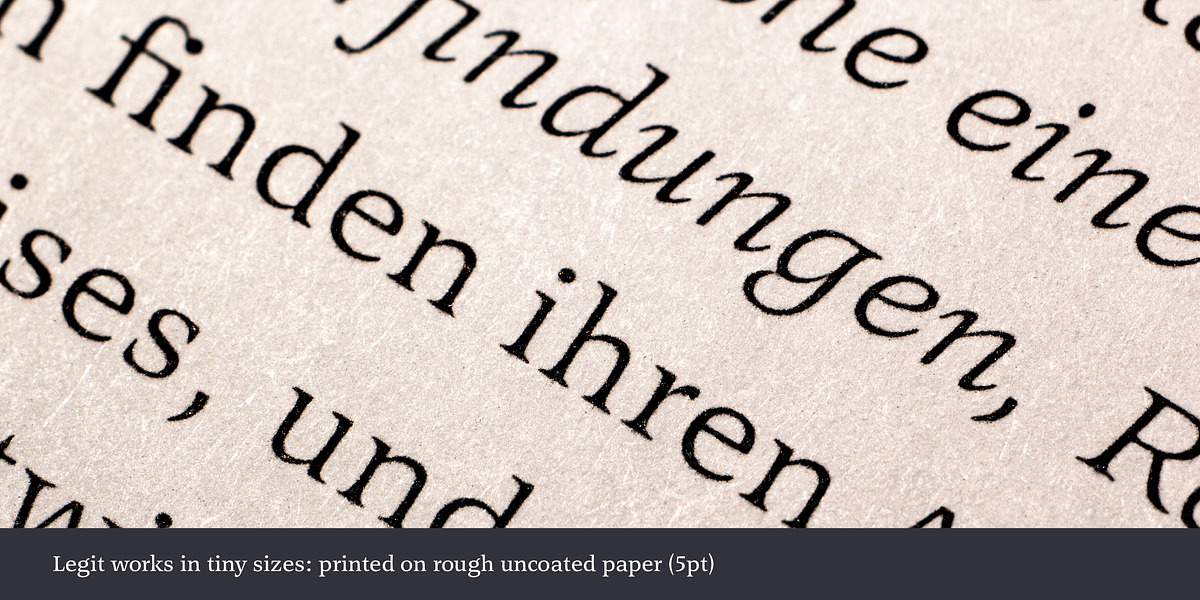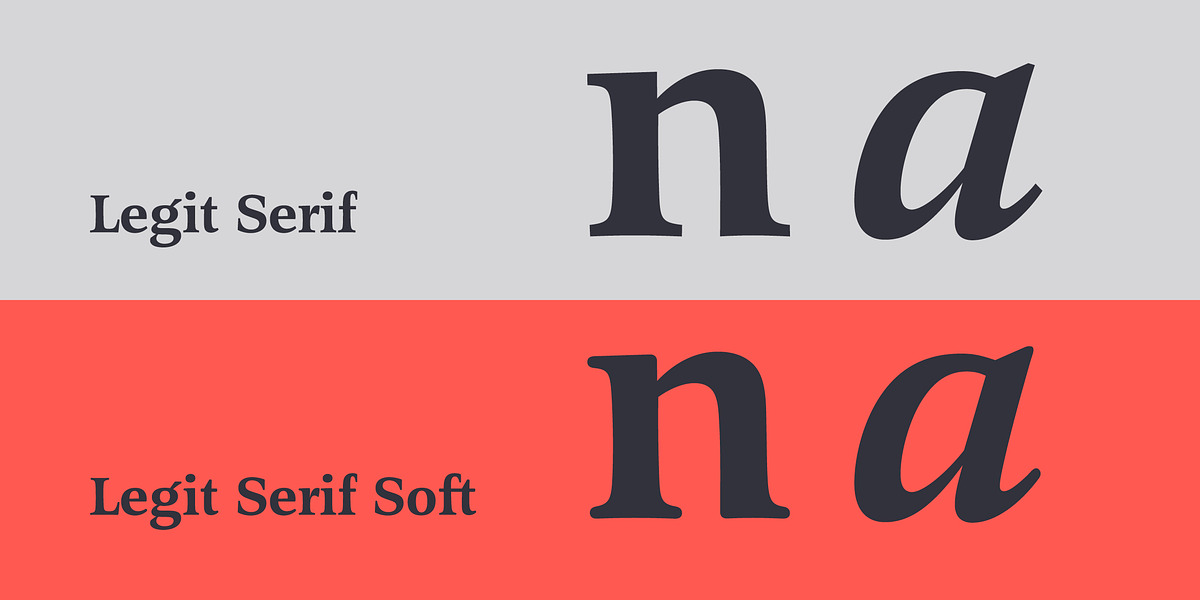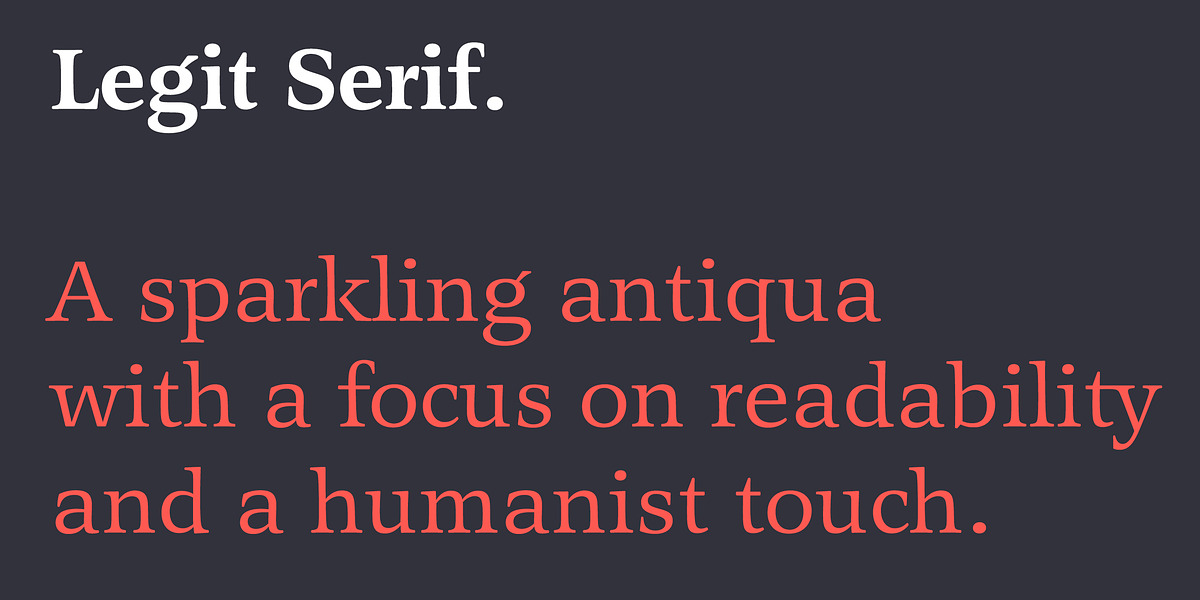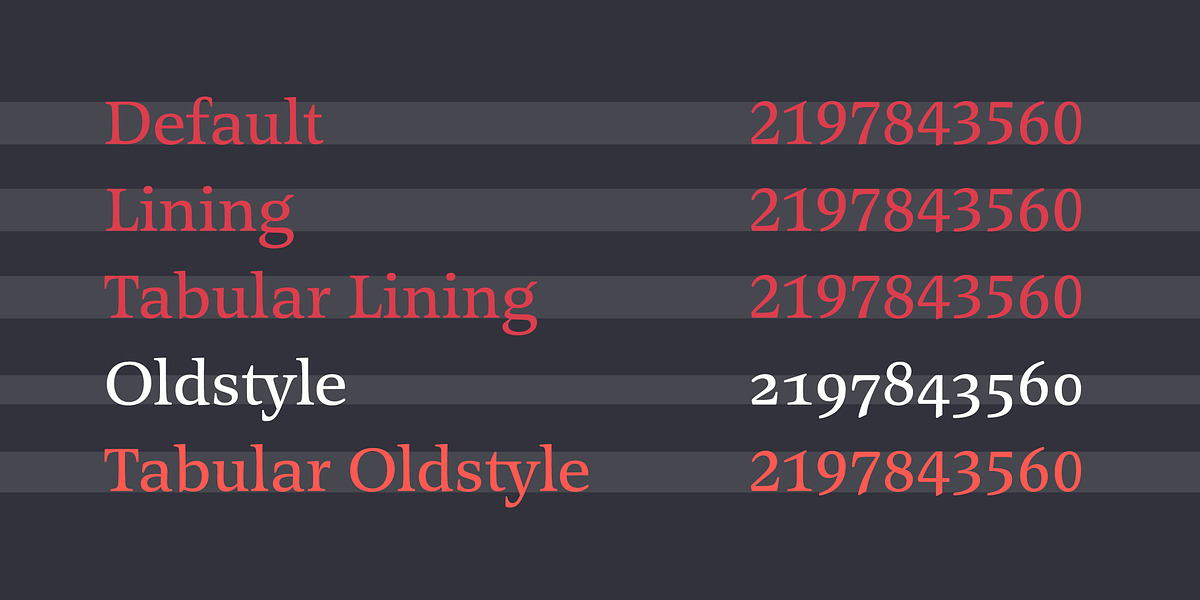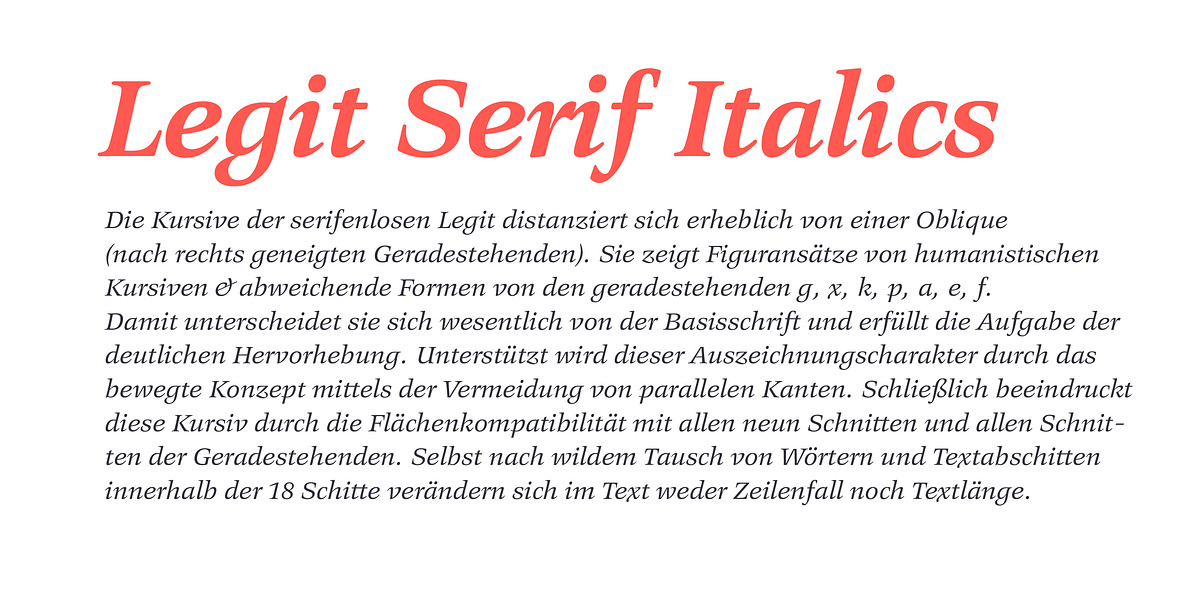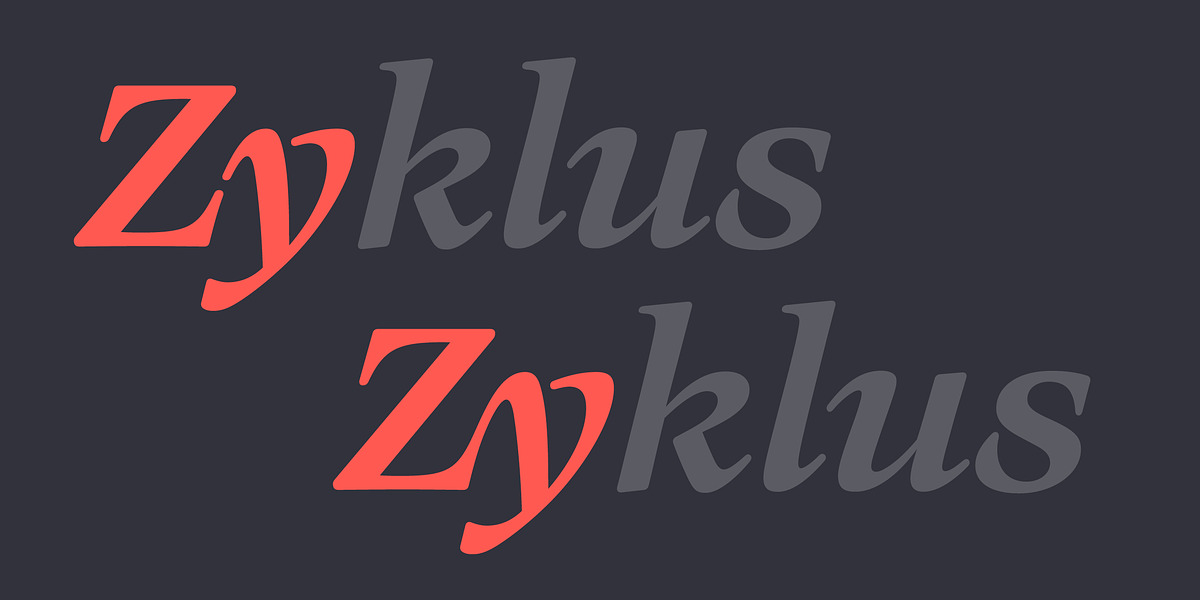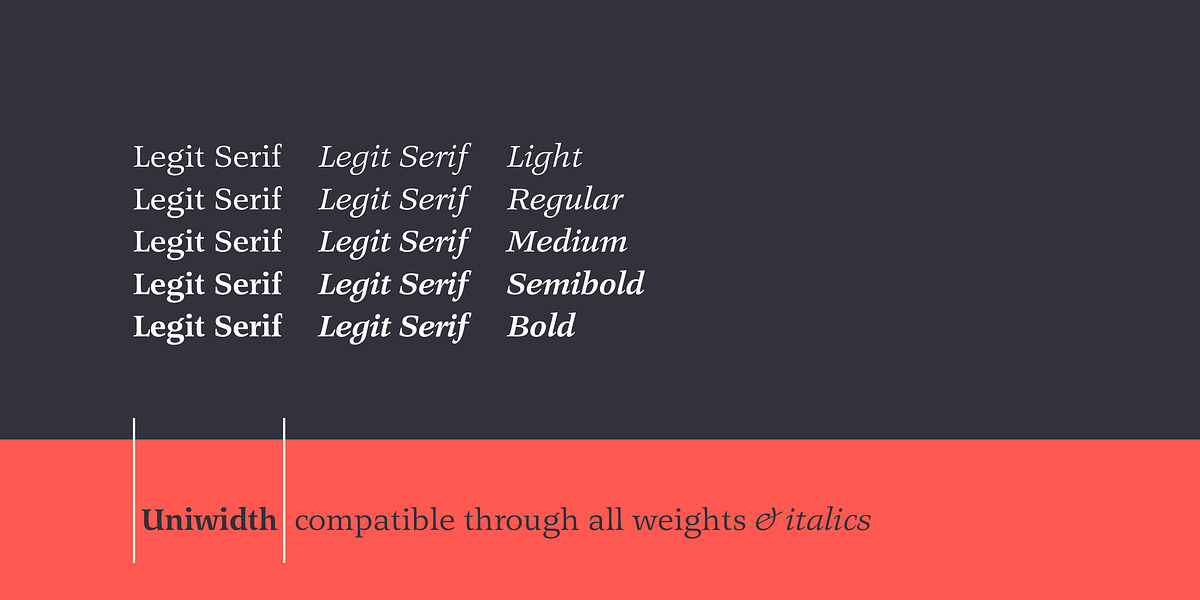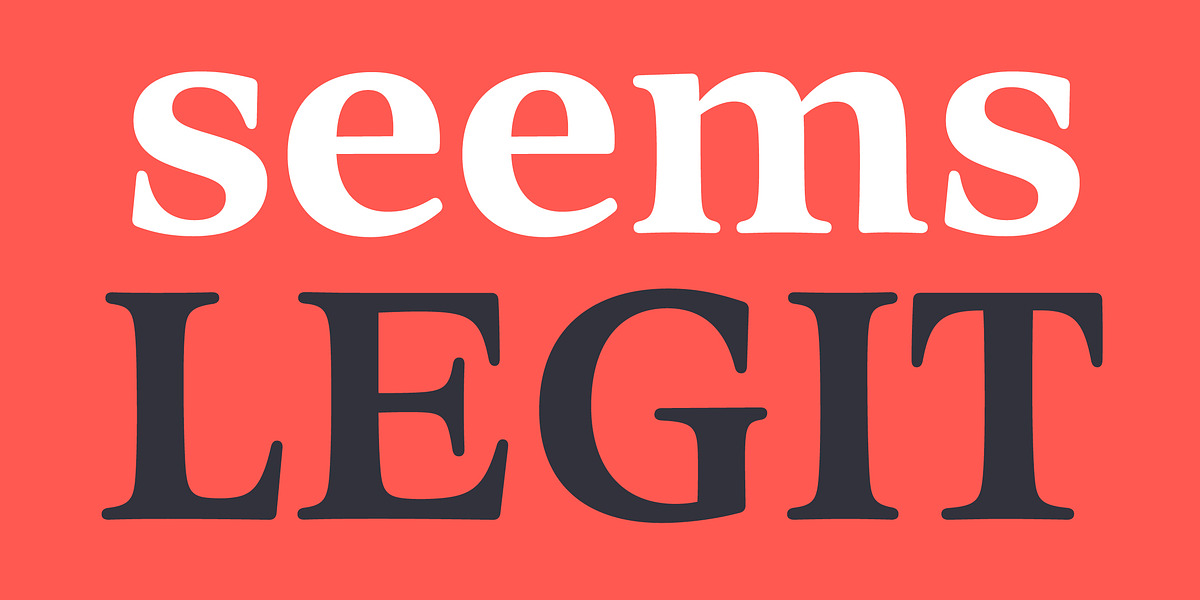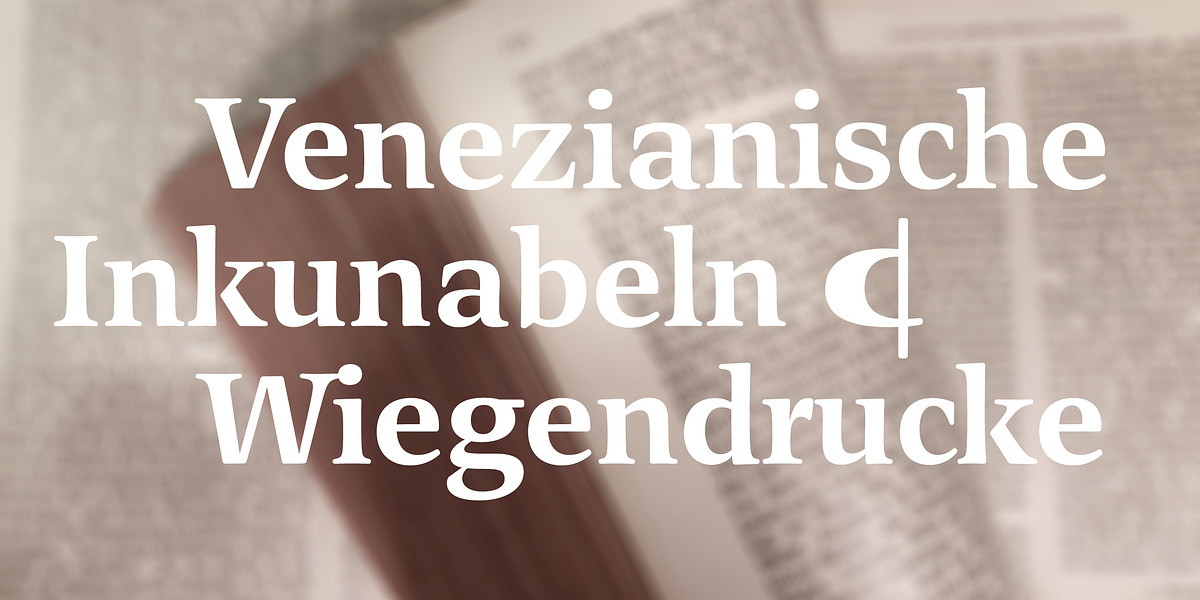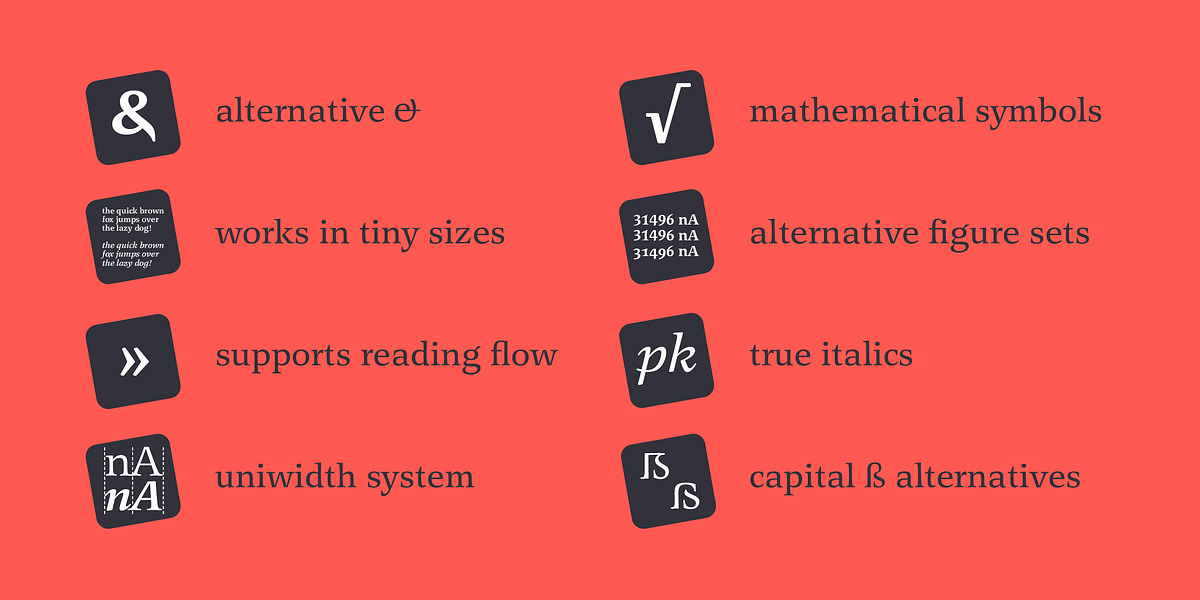
Legit Serif Soft
Legit Serif Soft is a transitional serif font designed for both readability in text sizes and aesthetic appeal in display settings. Its unique feature is the uniwidth system, ensuring all 18 styles maintain consistent width and allow for easy swapping without layout adjustments. It also boasts compatibility with the Legit Sans family, which shares this uniwidth system. The font includes ligatures, stylistic alternates, and strong accents, supporting over 36 languages.